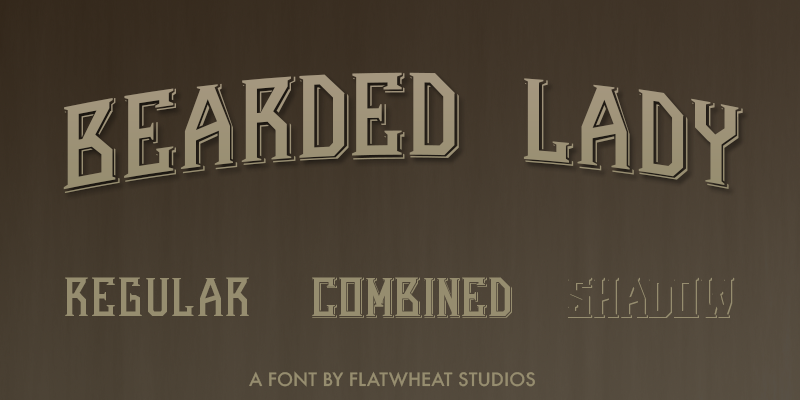
Are you yearning for a font that captures the essence of weathered and nostalgic circus signs? Look no further than Bearded Lady Font, a display font inspired by the grandeur of vintage carnivals. Each character exudes an old-world charm, inviting you on a journey through time.
Bearded Lady is not just a typeface; it's a gateway to a bygone era. Its carefully crafted curves and distressed textures evoke the allure of antique posters and faded circus tents. The font's playful nature lends itself perfectly to eye-catching headlines, logos, and branding that demands attention.
Embrace the nostalgia and evoke the spirit of the past with Bearded Lady Font. Each letter is a testament to the artistry of a bygone era, adding a touch of timeless elegance to your designs. Whether you're creating posters for a modern-day circus or evoking the golden age of entertainment, Bearded Lady will transport you and your audience to a realm of wonder and delight.
Harness the evocative power of Bearded Lady Font and let your designs speak volumes. Its versatility extends beyond vintage-inspired creations, seamlessly blending into contemporary aesthetics as well. With its ability to capture the essence of the past while resonating with modern sensibilities, Bearded Lady Font is a font for all seasons.
Don't settle for ordinary fonts that fail to ignite your imagination. Embrace the extraordinary with Bearded Lady Font and let your designs leave an unforgettable impression. Its unique charm and timeless appeal will captivate your audience, transporting them to a world where nostalgia and modernity collide.
Bearded Lady Font is more than just a collection of characters; it's a canvas for your creativity, a key to unlocking the past, and a beacon of inspiration for the future. Embark on a typographic adventure and let Bearded Lady Font guide you to design greatness.